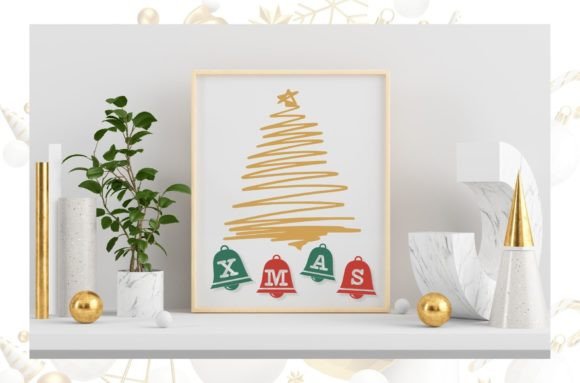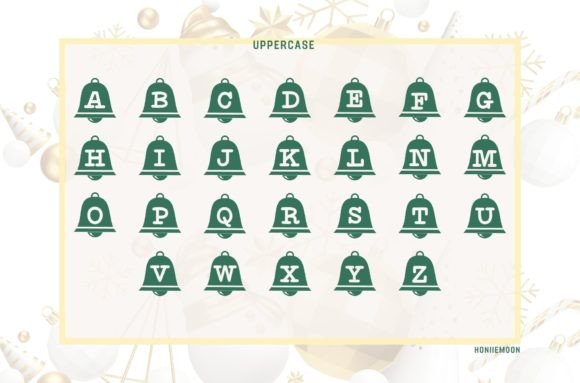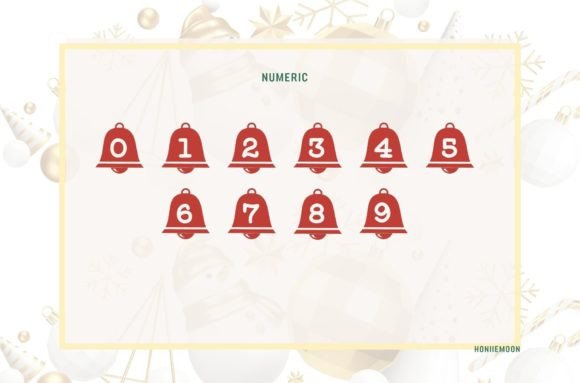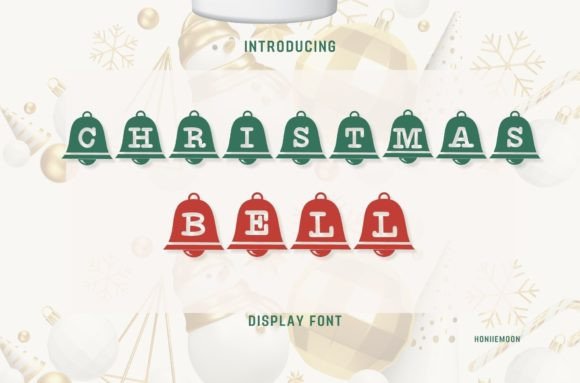
Christmas Bell Font: Add a Festive Touch to Your Designs
Are you looking for a fun and decorative font to add a festive touch to your designs? Look no further than the Christmas Bell Font! This cool and fun font is perfect for designers and crafters who want to create holiday-themed projects that are both cute and jolly.
What is Christmas Bell Font?
Christmas Bell Font is a decorative font that is designed to resemble the sound of Christmas bells. It has a playful and whimsical feel to it, making it perfect for holiday-themed designs. The font is versatile and can be used for a variety of projects, from greeting cards and invitations to posters and social media graphics.
Why Use Christmas Bell Font?
There are many reasons why you should consider using Christmas Bell Font in your designs. Here are just a few:
- Cute and Jolly: Christmas Bell Font has a fun and playful feel to it, making it perfect for holiday-themed designs.
- Versatile: The font can be used for a variety of projects, from small crafts to large-scale designs.
- Festive: The font adds a festive touch to any design, making it perfect for holiday-themed projects.
Design Ideas Using Christmas Bell Font
Here are some design ideas to get you started:
- Holiday Greeting Cards: Create festive holiday greeting cards using Christmas Bell Font.
- Invitations: Design holiday party invitations using Christmas Bell Font.
- Posters: Create eye-catching holiday posters using Christmas Bell Font.
- Social Media Graphics: Add a festive touch to your social media graphics using Christmas Bell Font.
- Craft Projects: Use Christmas Bell Font to add a personal touch to your craft projects, such as scrapbooking and journaling.
Christmas Bell Font is a fun and decorative font that is perfect for designers and crafters who want to add a festive touch to their designs. With its cute and jolly feel, versatility, and ease of use, it’s the perfect font for holiday-themed projects. So why wait? Download Christmas Bell Font today and start creating your own festive designs!